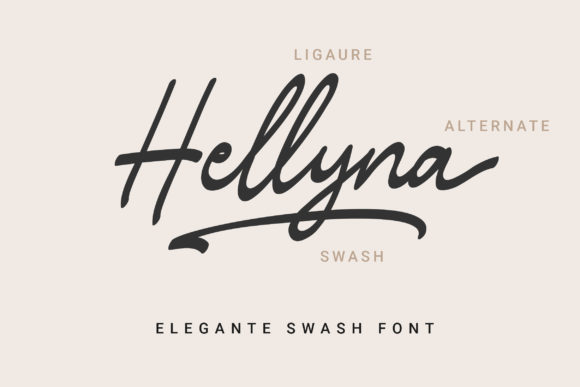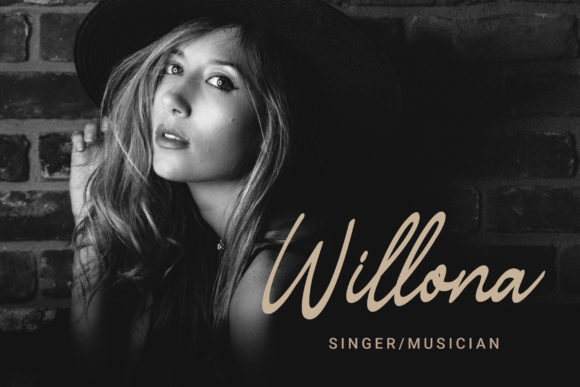
Elegante Font
db-ku.com - Script & Handwritten -- Elegante is a whimsical yet adaptable handwritten font, that can easily stand out. Simple but with a strong visual effect, this font will instantly make your creation more appealing than any others.